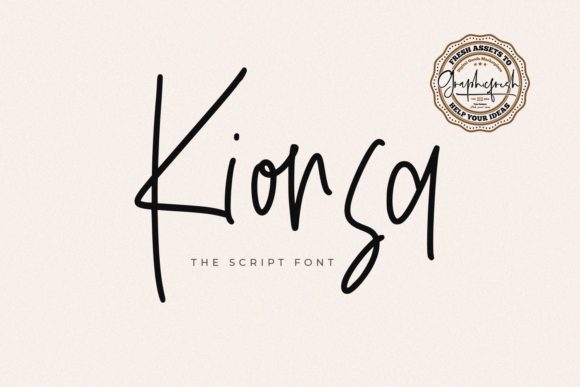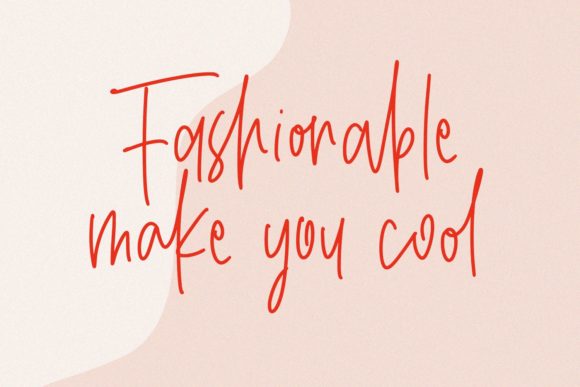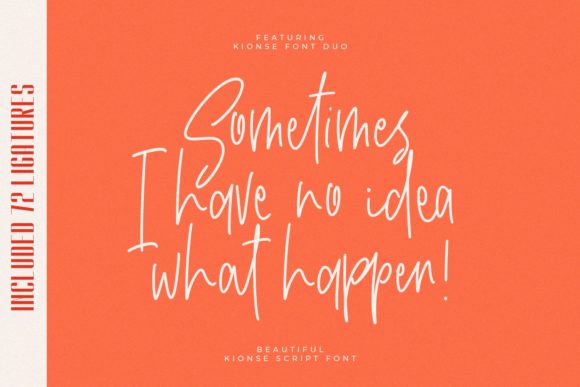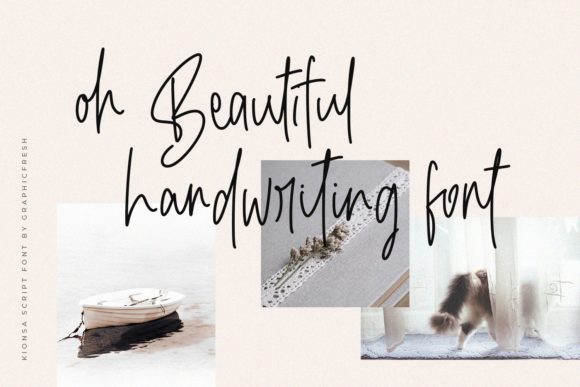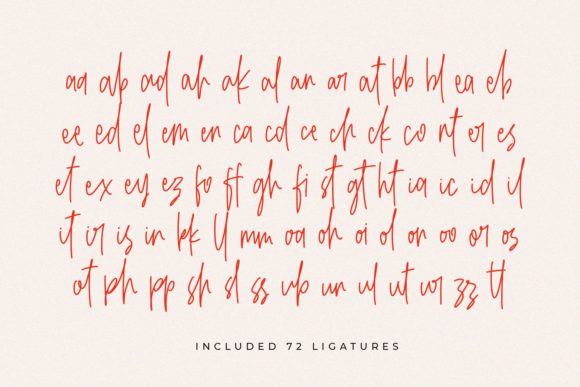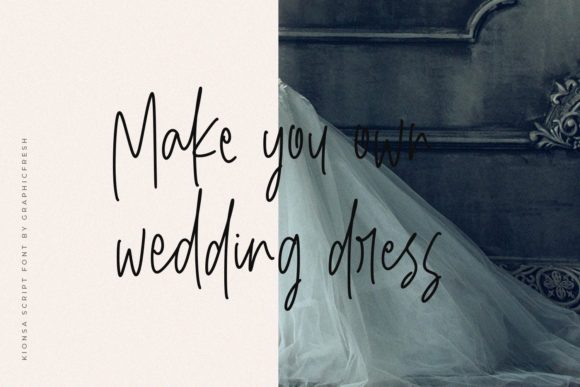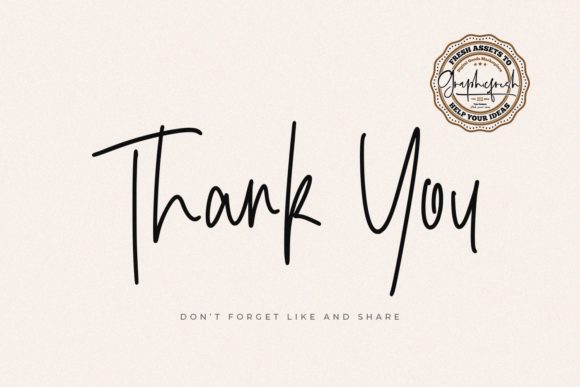
Kionsa Font
About Kionsa Font
Kionsa feels equally charming and elegant. Whether you’re looking for fonts for Instagram or calligraphy scripts for DIY projects, this handwritten font will turn any creative idea into a true piece of art!